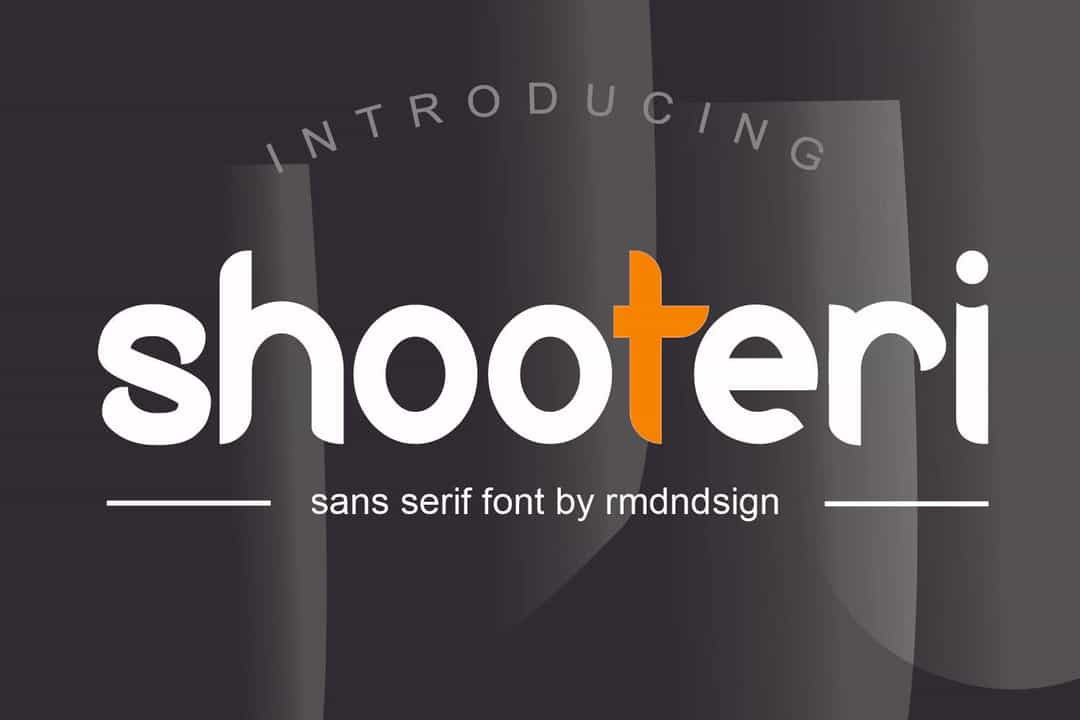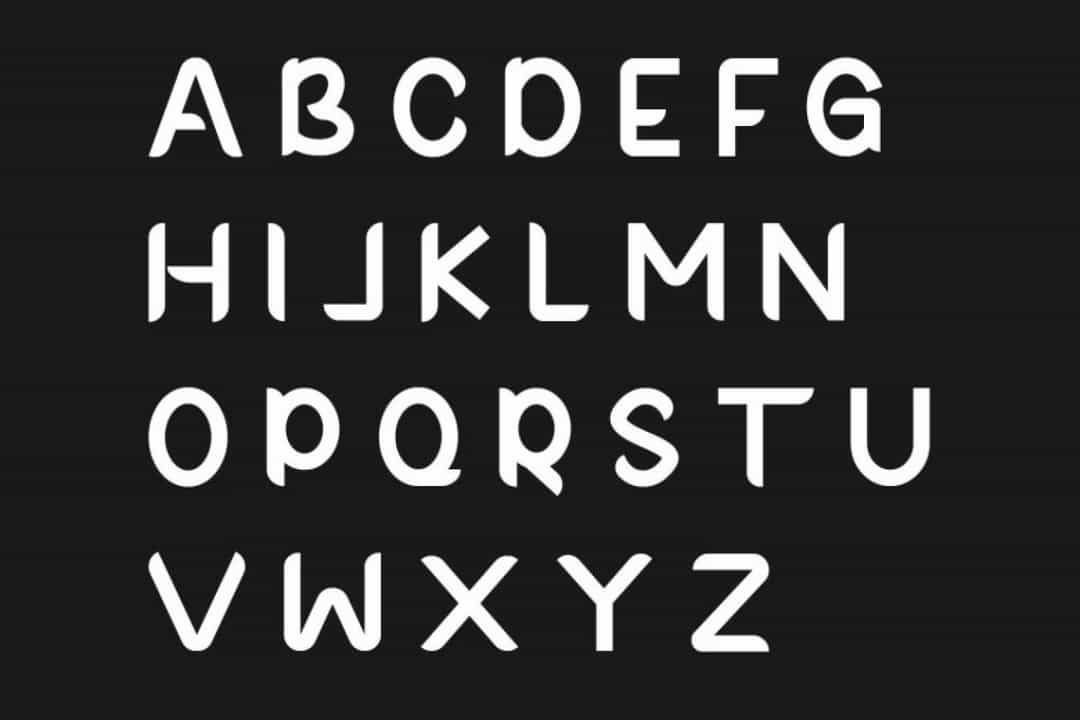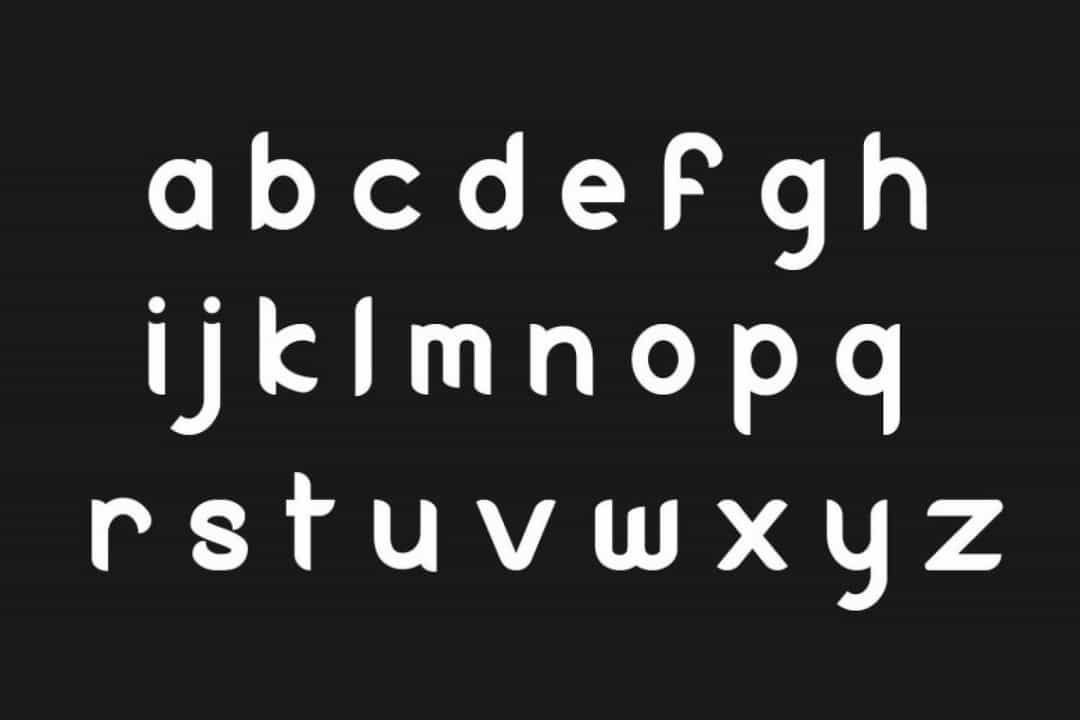
Shooteri font can be described as an elegant, contemporary and flexible sans-display font that adds modern style. Perfect for any design subject matter it will add elegance to any project making any design more visually attractive.